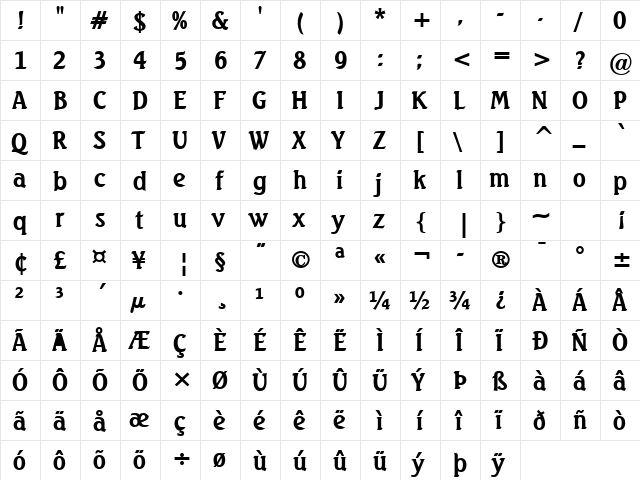
Beach Bold Font Preview
Beach Bold
Beach Bold Font Details
Design Context for Beach Typeface
Beach offers clean, dependable letterforms without strong stylistic allegiance, making it a practical choice for designers who need flexibility. Its bold stroke weight gives it real presence on the page.